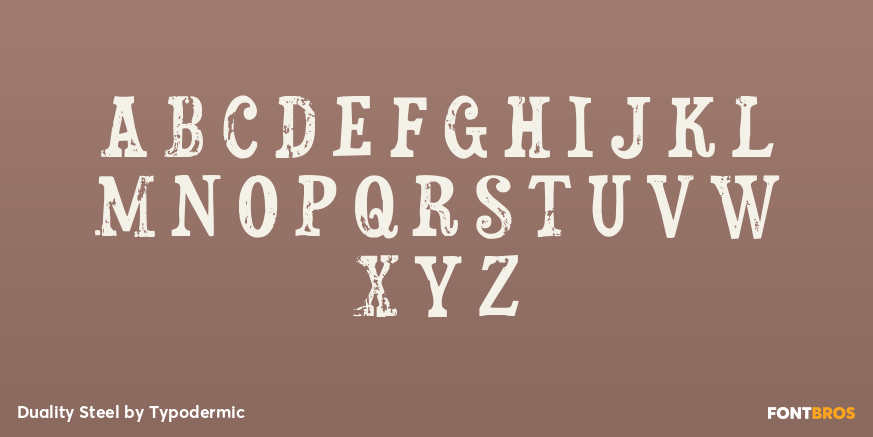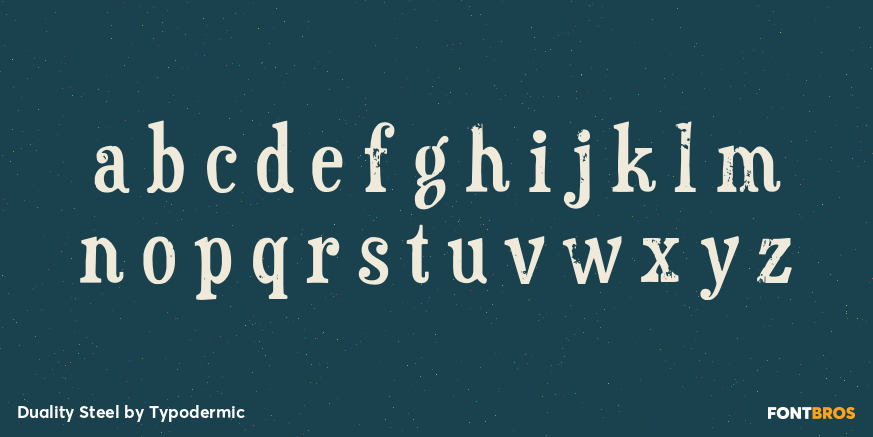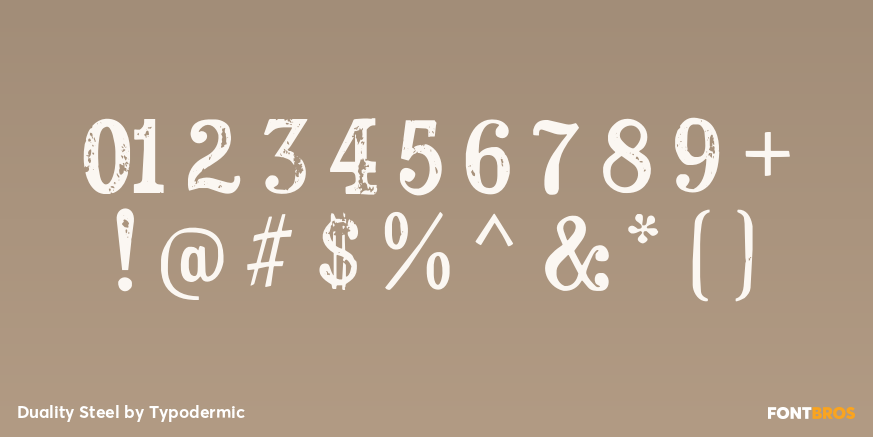
Duality Steel
Duality Steel pushes the same hand-built digital alphabet into a harsher, corroded material state. Its broken surface suggests pitted metal, damaged faceplates, workshop machinery, and electronic hardware that has survived more than cosmetic wear.
Use Steel for industrial synthesizers, rugged controllers, effects units, restoration projects, service-center graphics, replacement-module packaging, and campaigns built around durable or reclaimed equipment. It is the heaviest wear state in the family: Regular shows the original construction, Sand suggests abrasion, and Steel introduces deeper material damage.
Duality Steel by Typodermic